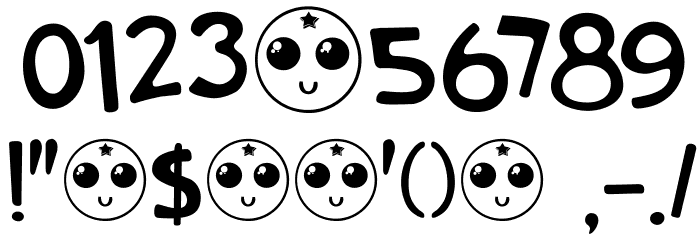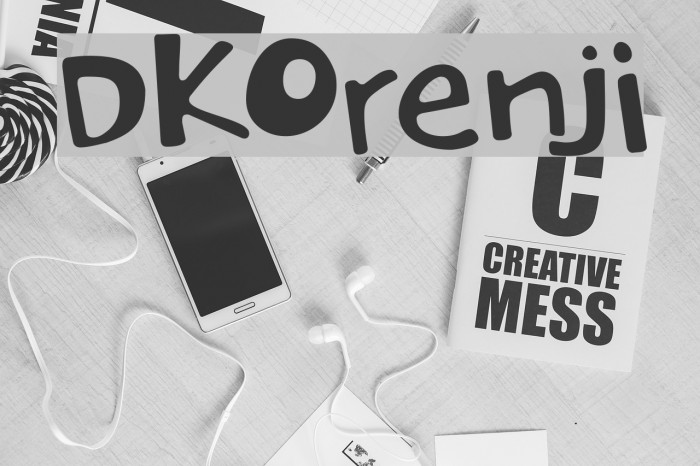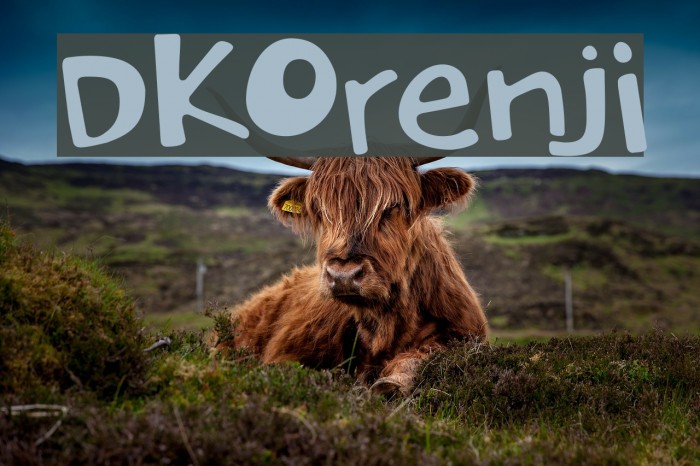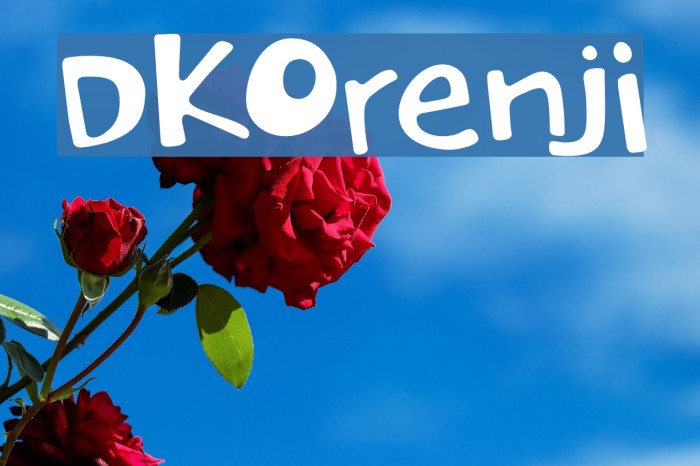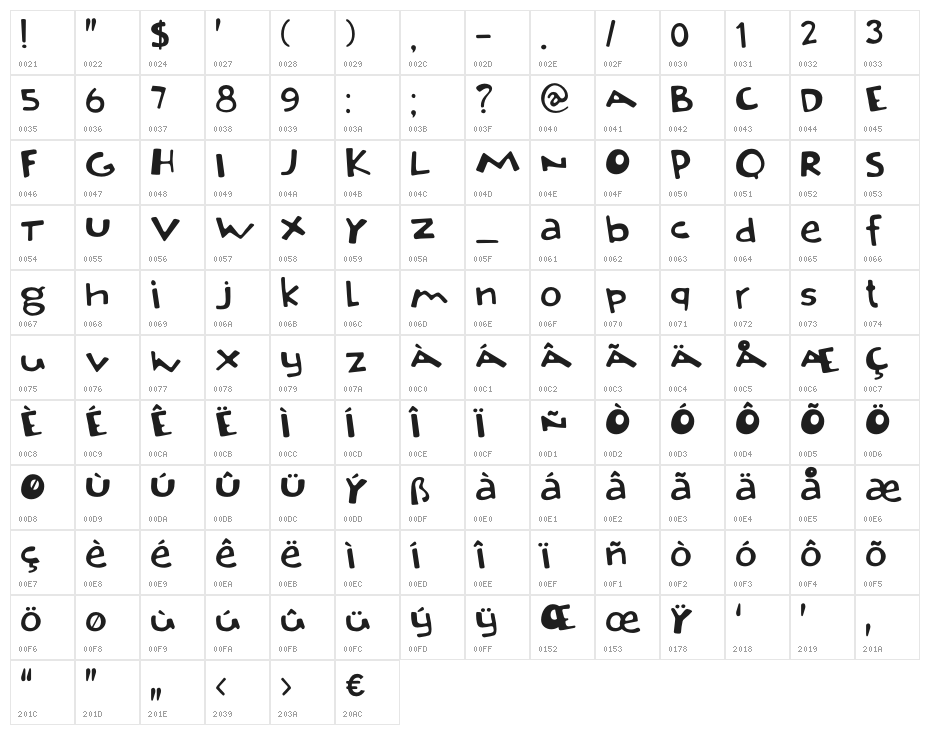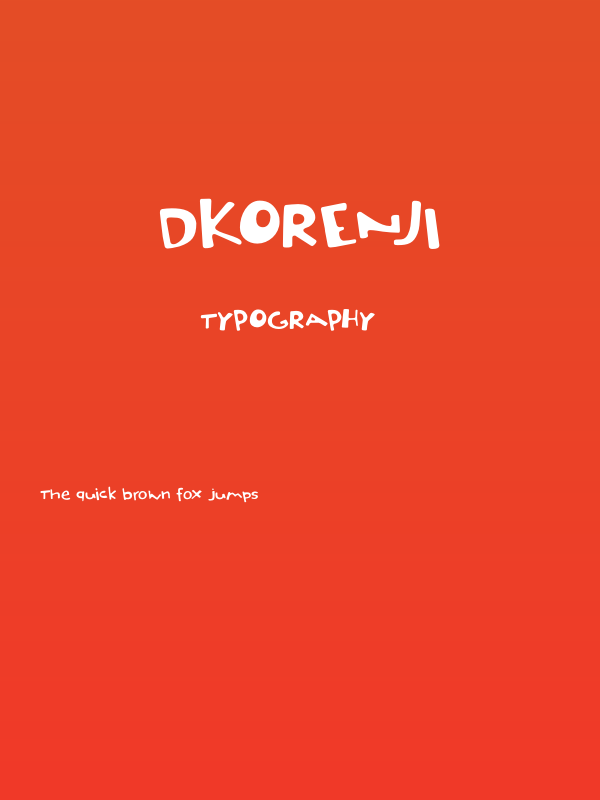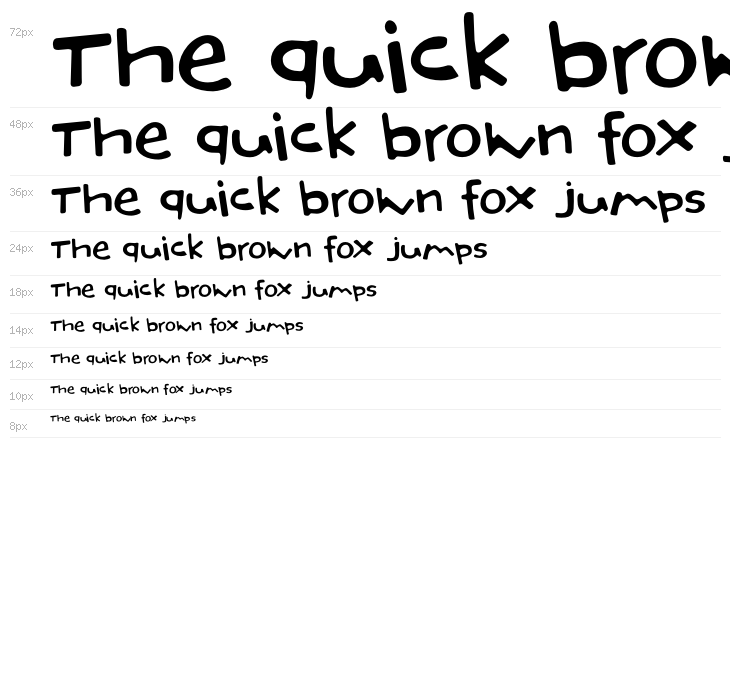
DKOrenji Font
This playful and whimsical font features bold, rounded characters with a hand-drawn appearance. The letters have a consistent thickness, giving them a cartoonish and friendly vibe. The uppercase and lowercase letters maintain a uniform style, with slight variations that add to the font's charm. The numbers are equally playful, with some characters incorporating smiley faces, adding a unique and fun element. The special characters follow the same rounded and bold style, ensuring consistency throughout the font. This font is perfect for projects that require a lighthearted and informal touch.
A playful, bold, and rounded font with a hand-drawn, cartoonish style.
- Proposed Projects: Ideal for children's books, comic strips, playful branding, and casual invitations.
- Overall Style: Playful, Whimsical